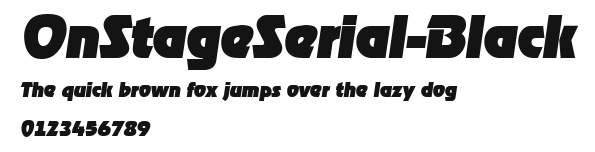
• Font Name: OnStageSerial-Black
• Designer: SoftMaker Software GmbH
About OnStageSerial-Black.ttf
OnStageSerial-Black.ttf is a modern, elegant sans-serif font designed for ultimate readability and visual harmony. Perfect for branding, headlines, web design, and print materials.